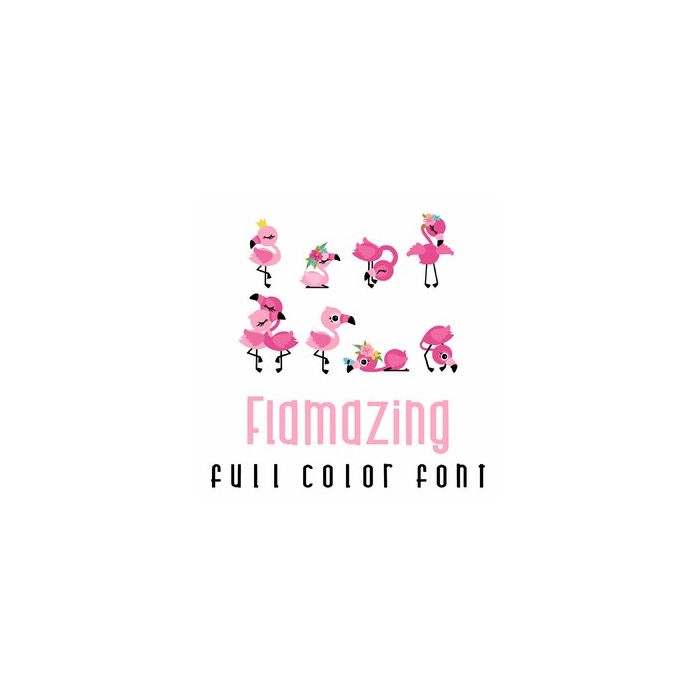
This adorable full color doodlebat font features beautiful flamingos. Perfect for cards, crafts, gifts, decor, scrap book pages, planner stickers and more!